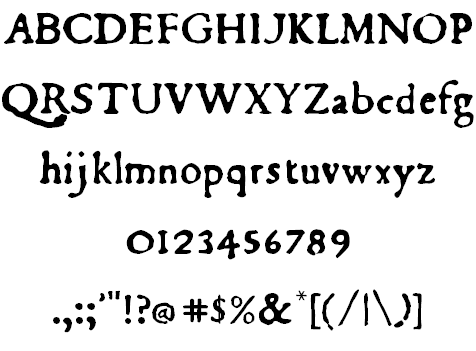
Free Du Bellay Font
Introducing you to the absolutely beautiful free du bellay font. This typeface file was found from the amazing source called Font Space. This is absolutely fancy font so you can easily make world-class designs.